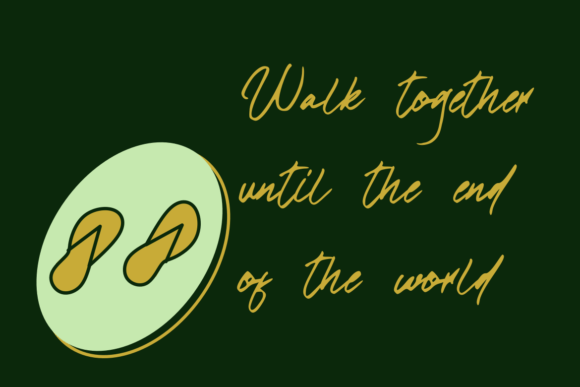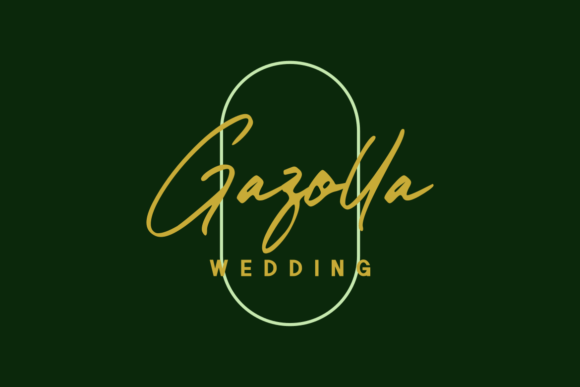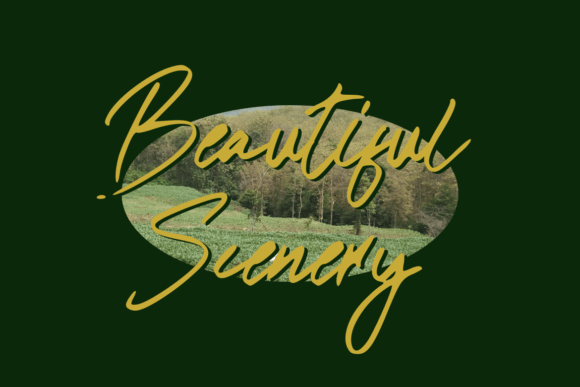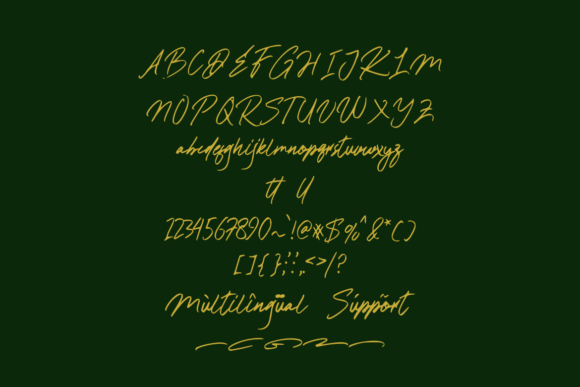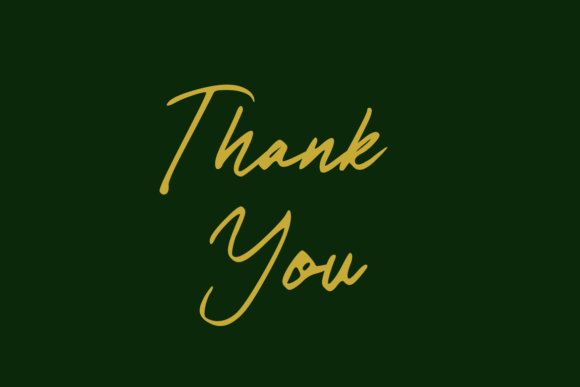
Discover the Elegance of Baginda Font: A Script Font for Creative Design Projects
In the world of typography, a font can make all the difference in the success of a design project. For designers and crafters looking for a script font that exudes elegance and sophistication, look no further than Baginda Font. This beautiful script font is designed to add a touch of class and refinement to any design project, making it perfect for a wide range of applications.
What is Baginda Script?
Baginda Script is a script font that boasts its own unique flow and elegant personality. Its distinctive style is sure to capture the attention of your audience and leave a lasting impression. Whether you’re working on a logo design, branding project, or creating eye-catching covers and posters, Baginda Script is the perfect choice.
Key Features of Baginda Font
So, what makes Baginda Font so special? Here are just a few of its key features:
- Unique Flow and Elegant Personality: Baginda Script has a distinctive style that sets it apart from other script fonts. Its elegant personality makes it perfect for designs that require a touch of sophistication.
- Suitable for a Wide Range of Design Projects: From logo design and branding to covers, posters, and more, Baginda Script is versatile enough to meet all your design needs.
- PUA Encoded: This font is PUA (Private Use Area) encoded, which means you can easily access all the amazing glyphs and ligatures without any hassle.
Benefits of Using Baginda Font
Using Baginda Script in your design projects comes with a range of benefits. Here are just a few:
- Ease of Use: Thanks to its PUA encoding, you can access all the glyphs and ligatures with ease, making it simple to incorporate into your designs.
- High Versatility: Baginda Script can be used in a wide range of design projects, from elegant branding and logos to creative posters and covers.
- Unique Style: With its unique flow and elegant personality, Baginda Script is sure to make your designs stand out from the crowd.
How to Use Baginda Font in Your Design Projects
Using Baginda Script in your design projects is easy. Here are a few tips to get you started:
- Pair it with Other Fonts: Experiment with pairing Baginda Script with other fonts to create a unique and eye-catching design.
- Play with Glyphs and Ligatures: Take advantage of the font’s PUA encoding to access a range of glyphs and ligatures, adding extra flair to your designs.
- Use it for Headings and Titles: Baginda Script is perfect for headings and titles, adding a touch of elegance and sophistication to your designs.
If you’re looking for a script font that offers elegance, sophistication, and versatility, look no further than Baginda Font. With its unique flow, elegant personality, and PUA encoding, it’s the perfect choice for a wide range of design projects. Whether you’re a designer, crafter, or simply someone who appreciates beautiful typography, Baginda Script is sure to impress.